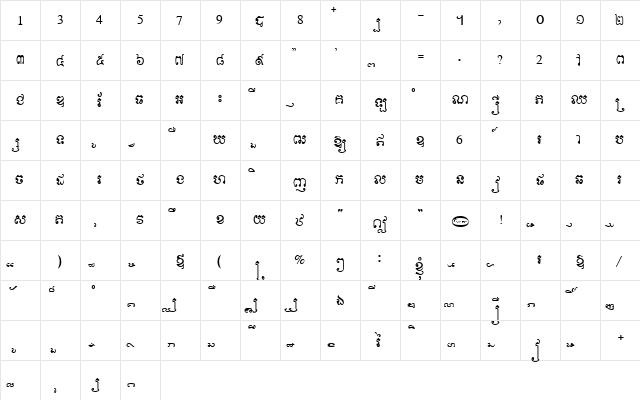
Limon R2 Normal
Design Context for Limon R2 Typeface
Limon R2 takes a measured approach to typography — its balanced proportions and neutral character make it a reliable workhorse for both digital and print work.